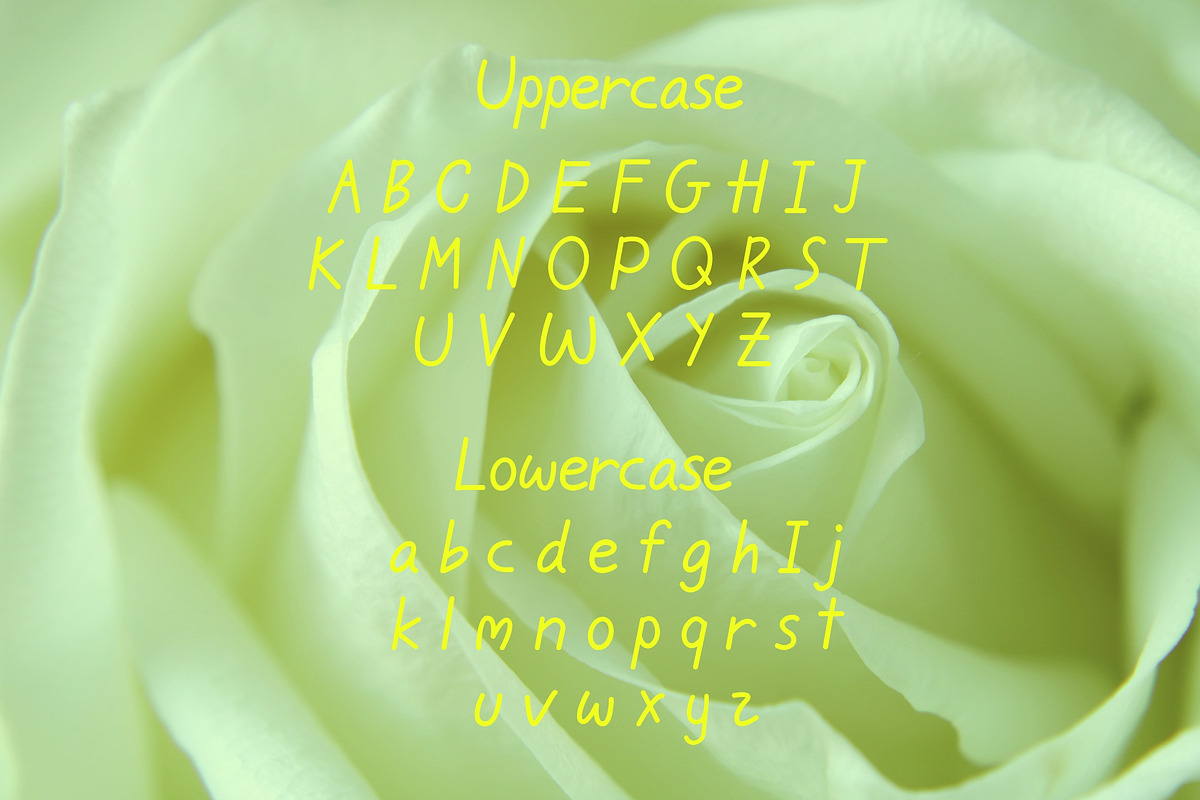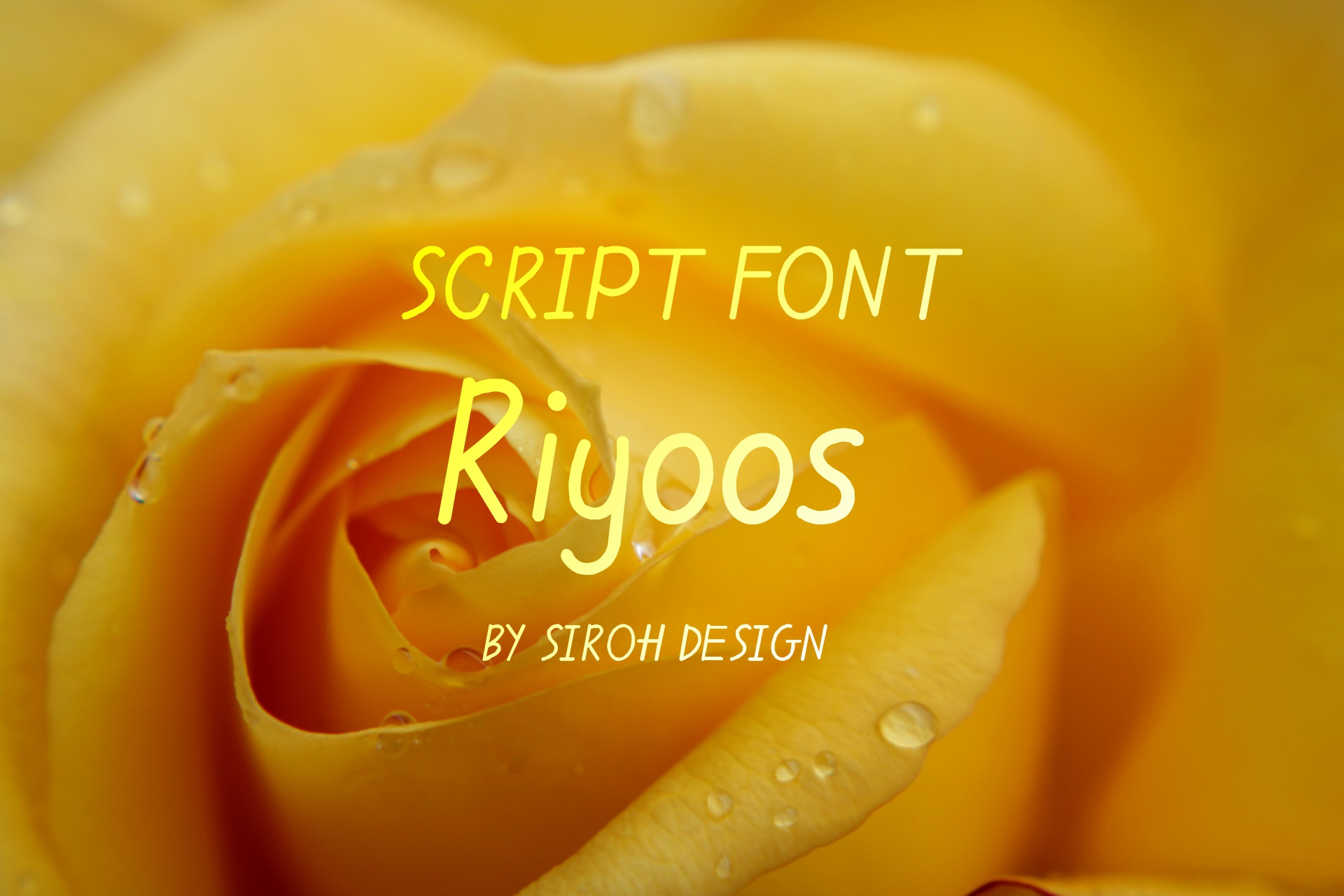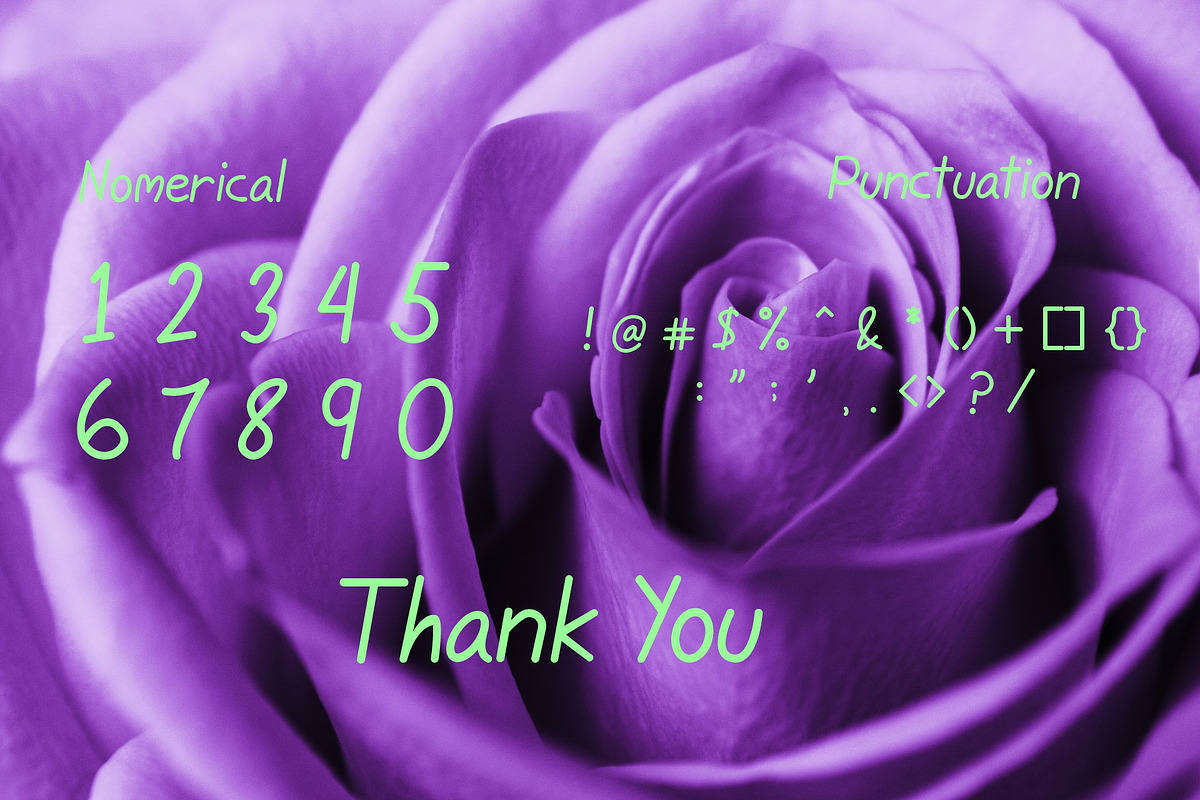
Riyoos Font
Riyoos font is a clean and simple handwritten font. It is the best choice for creating eye catching logos, branding and quotes. Every letter has a unique and beautiful touch, which will make your design come alive!